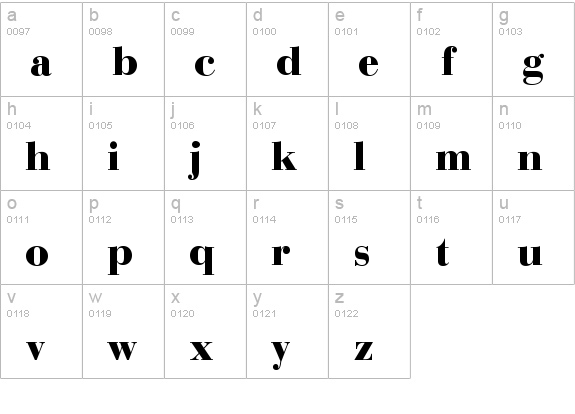
8 Bauer Bodoni** Black 09033 Font Details
8 Bauer Bodoni** Black 09033 is a maximum-weight, dramatic variant in the 8 typeface family \xE2\x80\x94 well suited to maximum-impact headlines, posters, and packaging.
8 Bauer Bodoni Black 09033 font is a bold and elegant typeface that exudes sophistication and modernity. With its clean lines and sharp serifs, this font is perfect for making a statement in headlines, titles, and branding materials. Its strong presence on the page demands attention and adds a touch of luxury to any design project. What makes 8 Bauer Bodoni Black 09033 font even more appealing is that it is freely available for download at FontsMarket.com. This means you can access this high-quality typeface without any cost, making it a valuable addition to your font library. Whether you're working on a print design, web project, or any other creative endeavor, 8 Bauer Bodoni Black 09033 font is sure to elevate your work with its timeless and refined aesthetic.